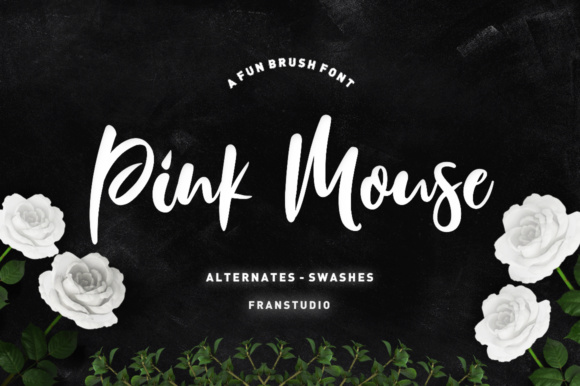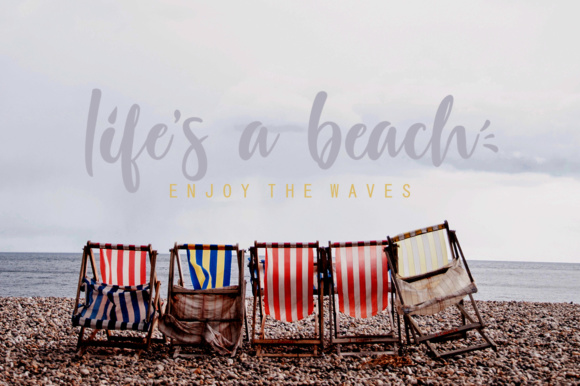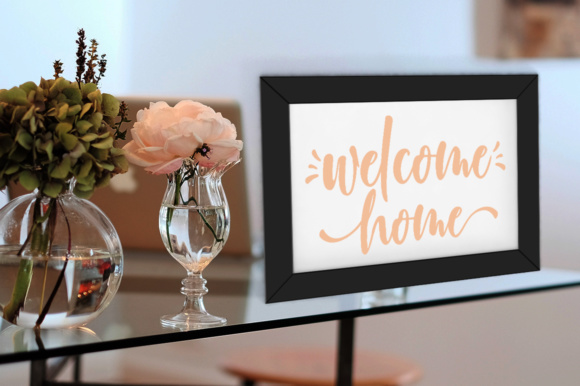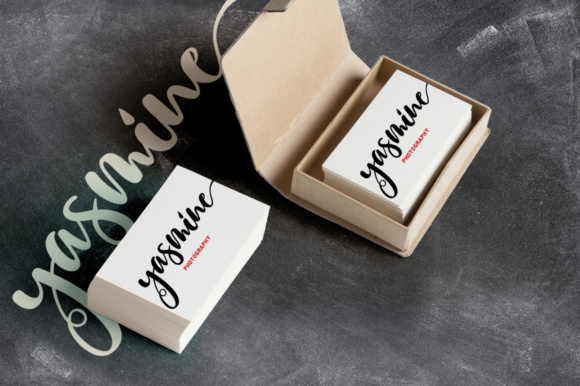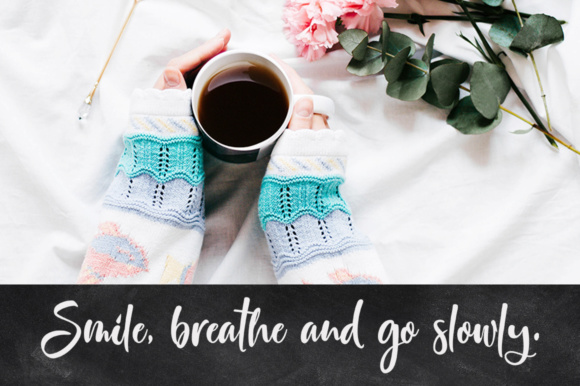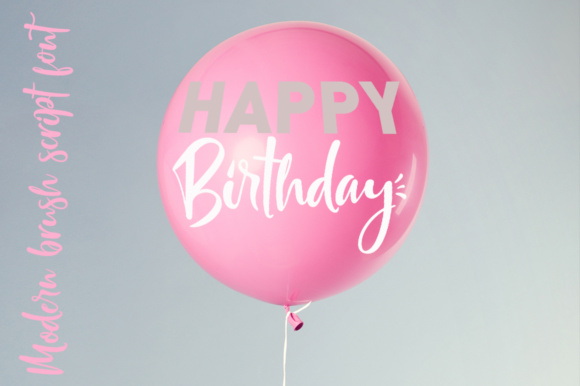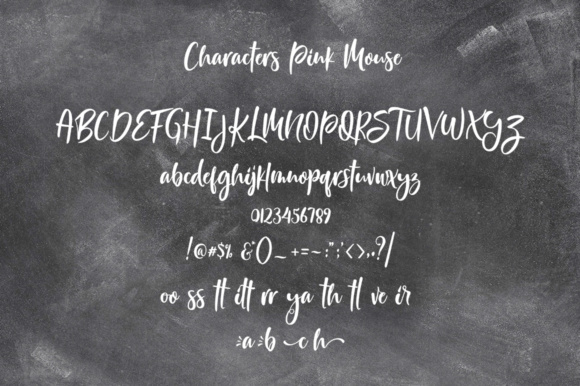
Pink Mouse Font
About Pink Mouse Font
Pink Mouse Script is a modern calligraphy font with smooth lines and a varying baseline. It will give your design a classic and elegant touch. Pink Mouse can be used for various purposes such as: headings, signatures, logos, wedding invitations, and much more!